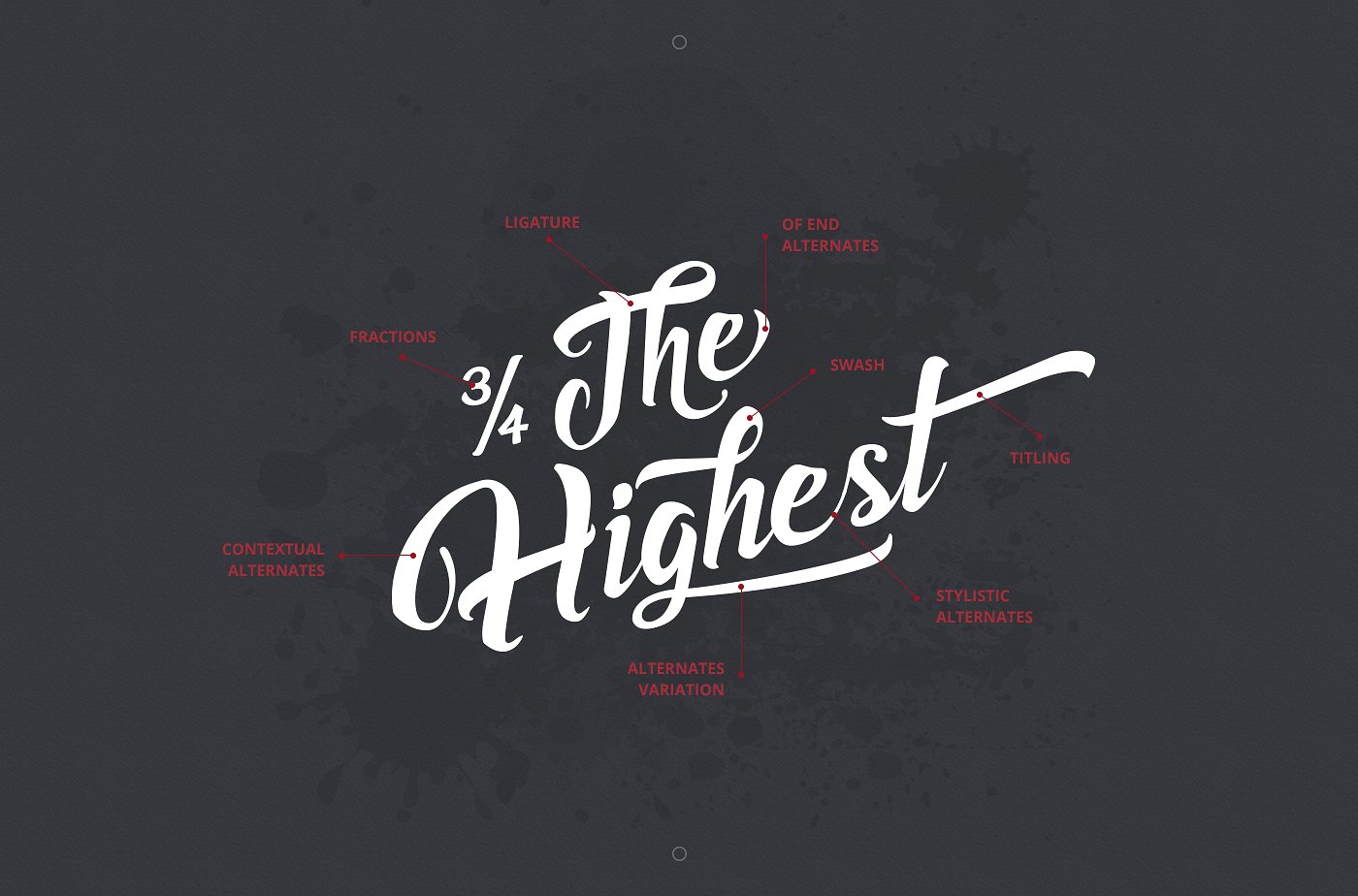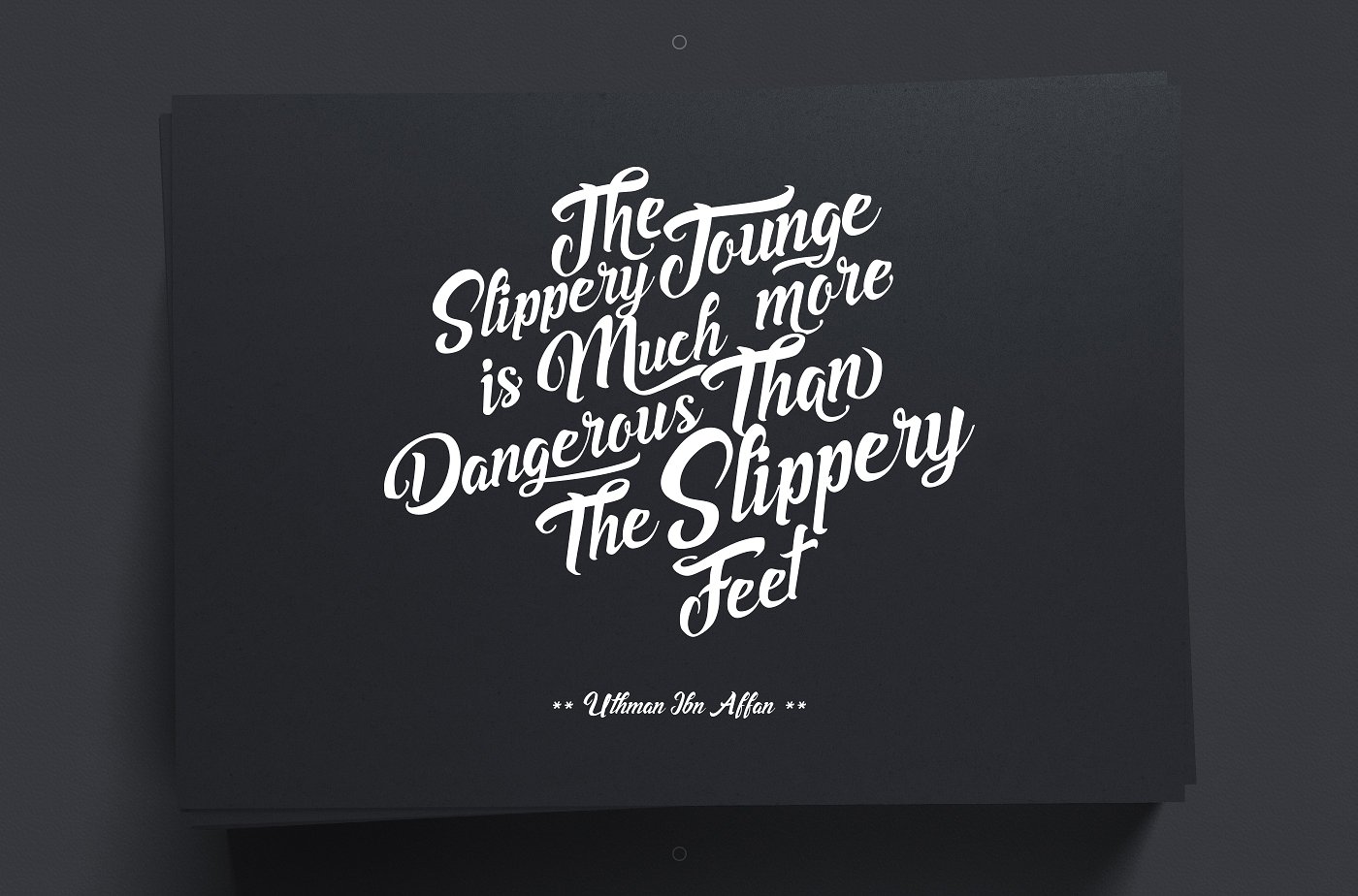
Asiyah Script Font
About Asiyah Script Font
Asiyah Script is a handwritten typeface with a strong personality.
It has a professional expressive looks which makes it great for branding. On the other side it has a soft personal touch which makes it very suitable for personal projects.